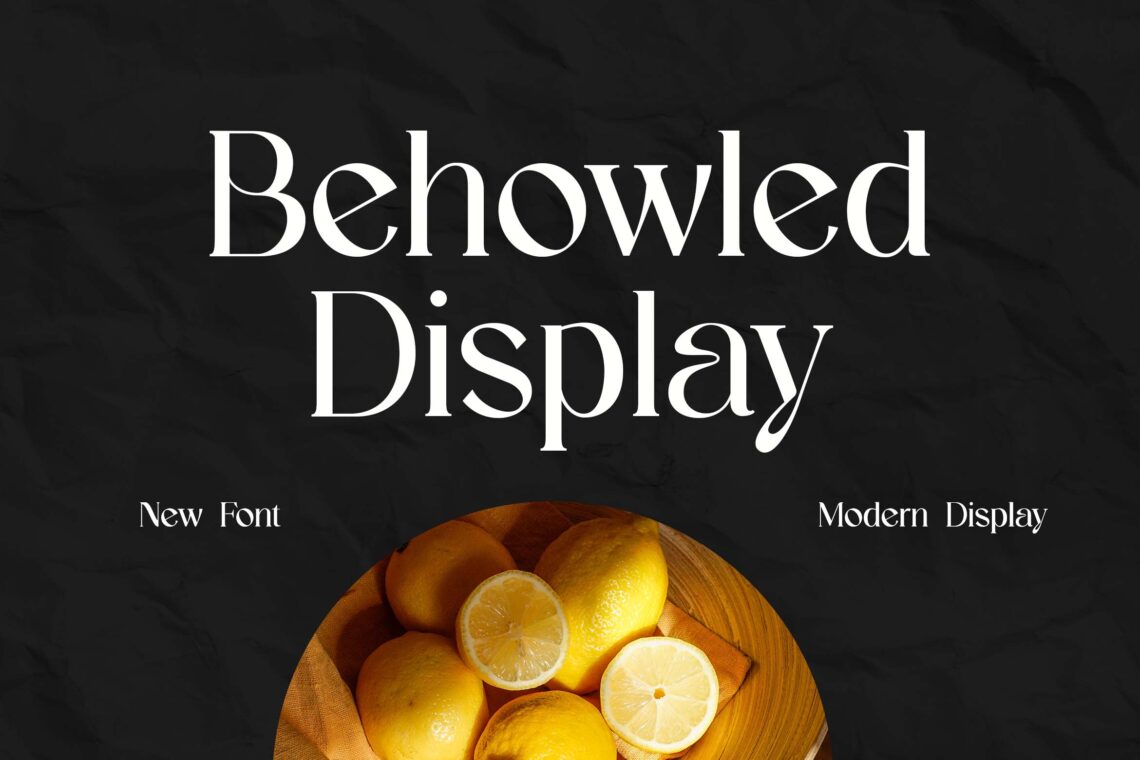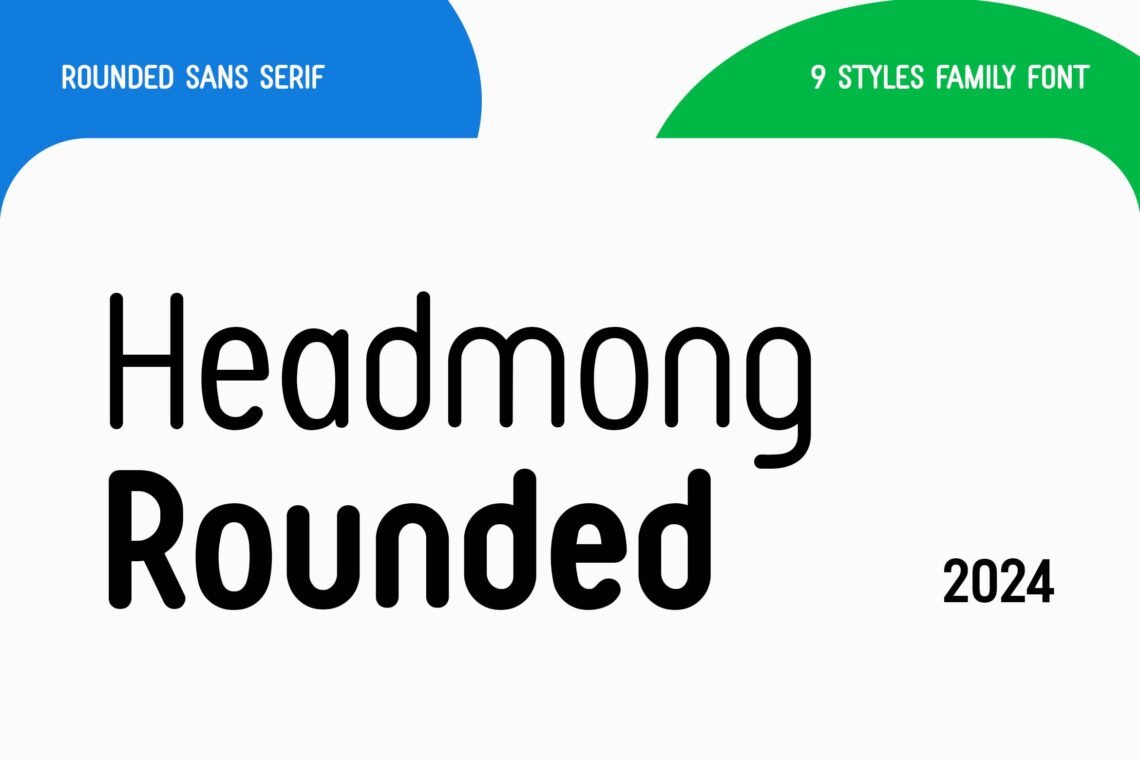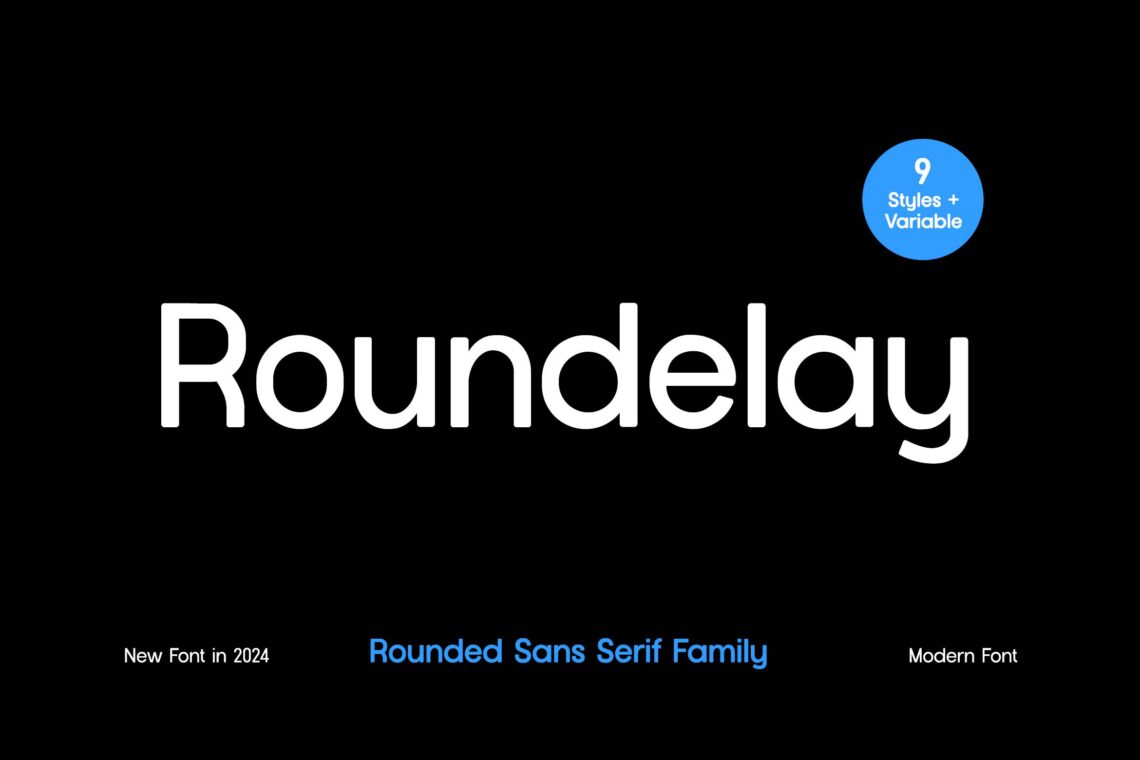
15 Best Font Logo 2025 For Your Projects
A logo font plays a crucial role in defining a brand’s identity, making it instantly recognizable and memorable. The best font logo 2025 trends focus on modern, versatile, and visually appealing typefaces that enhance brand aesthetics. Choosing the right font for startups, luxury brands, or tech companies helps establish trust and professionalism. With evolving design trends, the best font logo 2025 includes minimalist, futuristic, and bold styles that work seamlessly across digital and print media.
15 Best Font Logo 2025
Here are the 15 best font logo 2025 that stand out for their uniqueness and branding potential:
1. Equistrian Modern Serif Display Font
Equistrian Modern Serif Display Font
Equistrian Modern Serif Display Font is a sophisticated and elegant typeface designed to exude luxury and refinement. With its bold yet graceful letterforms, this font is perfect for high-end branding, editorial designs, fashion magazines, invitations, and logo designs. Featuring a balance of classic serif elements with a modern touch, Equistrian offers excellent readability and a timeless aesthetic. Its versatility makes it suitable for both headlines and body text, adding a touch of class to any design project. Elevate your creative work with this premium and stylish serif font.
2. Angelina Rosemary Script Wedding Font
Angelina Rosemary Script Wedding Font
Angelina Rosemary Script Wedding Font is a beautifully elegant and romantic typeface, perfect for wedding invitations, love letters, branding, and special events. With its flowing, handcrafted script style, this font captures a sense of grace and sophistication, making every design feel timeless and personal. Featuring delicate curves, smooth strokes, and exquisite ligatures, Angelina Rosemary adds a luxurious and heartfelt touch to any project. Ideal for couples, designers, and event planners looking to create stunning, memorable wedding stationery and romantic-themed designs.
3. Behowled Classic Modern Serif Display
Behowled Classic Modern Serif Display
Behowled Classic Modern Serif Display is a bold and sophisticated typeface that blends timeless elegance with contemporary flair. With its sharp serifs, refined curves, and striking contrast, this font is perfect for luxury branding, editorial layouts, fashion magazines, and high-end packaging. Its versatile and stylish design ensures a strong visual impact, making it ideal for headlines, logos, and creative projects that demand a touch of class and sophistication. Elevate your designs with Behowled, a serif display font that exudes confidence and modern charm.
4. Roundelay Rounded Sans Serif Family Font
Roundelay Rounded Sans Serif Family Font
Roundelay Rounded Sans Serif Family Font is a modern and friendly typeface that combines clean lines with smooth, rounded edges for a warm and approachable look. Designed for versatility, this font family includes multiple weights, making it perfect for branding, UI design, packaging, posters, and editorial layouts. Its balanced proportions and soft curves create a harmonious reading experience, while its contemporary aesthetic ensures a stylish and professional appeal. Whether you’re designing for digital or print, Roundelay brings a fresh and inviting touch to any project.
5. Headmong Rounded Sans Serif Family
Headmong Rounded Sans Serif Family
Headmong Rounded Sans Serif Family is a sleek and modern typeface that combines geometric precision with soft, rounded edges for a friendly yet professional look. Designed for versatility, this font family includes multiple weights, making it ideal for branding, UI/UX design, packaging, posters, and editorial layouts. Its clean lines and smooth curves ensure excellent readability, while its contemporary appeal adds a touch of warmth and sophistication. Whether you’re creating a minimalist logo or engaging web content, Headmong delivers a polished and approachable aesthetic for any design project.
6. Galvanizer Sans Serif Display Family Font
Galvanizer Sans Serif Display Family Font
Galvanizer Sans Serif Display Family Font is a bold and modern typeface designed to make a strong visual impact. With its clean lines, sharp edges, and contemporary structure, this font family is perfect for branding, headlines, posters, packaging, and digital designs. Available in multiple weights, Galvanizer offers versatility, allowing you to create dynamic typography with a sleek, professional feel. Whether you’re designing for print or screen, this sans serif display font ensures clarity, elegance, and a commanding presence in any creative project.
7. Discographica Classic Serif Font
Discographica Classic Serif Font
Discographica Classic Serif Font is a timeless and elegant typeface inspired by vintage typography with a modern twist. Featuring refined serifs, balanced proportions, and a sophisticated aesthetic, this font is perfect for editorial design, luxury branding, album covers, book titles, and high-end packaging. Its classic yet contemporary appeal makes it versatile for both print and digital applications, ensuring a striking visual presence. Elevate your designs with Discographica, a serif font that blends tradition with modern sophistication.
8. BrushMarker Hand Painted Font
BrushMarker Hand Painted Font
BrushMarker Hand Painted Font is a bold and expressive typeface that brings the raw energy of hand-painted brush strokes to your designs. With its dynamic texture, natural flow, and artistic feel, this font is perfect for branding, posters, social media graphics, packaging, and creative projects that need a personal, handcrafted touch. Its rough edges and organic style add authenticity and character, making every design feel unique and full of life. Whether you’re aiming for a grunge, street-style look or a playful artistic vibe, BrushMarker delivers striking, high-impact typography.